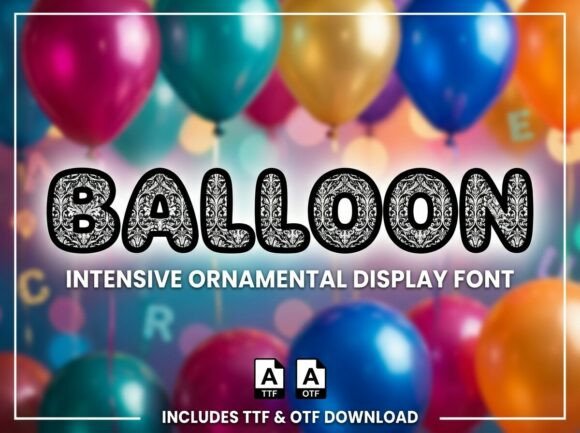
Elevate Your Typography with Balloon Font: A Premium Filigree Display Font
Are you looking to add a touch of haute-couture elegance to your typography? Look no further than Balloon, a premium filigree display font that embodies the essence of baroque sophistication. This stunning typeface is designed to infuse your visual projects with a sense of luxury and refinement, making it perfect for designers and crafters who want to create high-end designs.
The Unique Design of Balloon Font
Balloon font features heavy, rounded “bubble” contours that serve as an architectural frame for a breathtaking internal tapestry of symmetrical damask patterns, curling acanthus leaves, and royal scrolls. This intricate design creates a beautiful juxtaposition of a friendly silhouette with a hyper-detailed, aristocratic interior texture. The thick outer outline with a subtle glowing halo adds an extra layer of depth and sophistication to the font.
Perfect for Luxury Designs
Balloon font is an exceptional match for high-end cosmetic packaging, wedding invitation titles, luxury boutique logo designs, and festive elite event graphics. Its unique personality and luxurious feel make it perfect for designers who want to create visually stunning and sophisticated designs. Whether you’re working on a luxury brand project or a high-end event, Balloon font is sure to deliver a profound sense of established gemstone grace and unyielding professional luxury.
Key Features of Balloon Font
- Heavy, rounded “bubble” contours: Create a beautiful frame for your typography, adding a touch of elegance and sophistication.
- Intricate internal tapestry: Features symmetrical damask patterns, curling acanthus leaves, and royal scrolls, adding a hyper-detailed, aristocratic texture to your designs.
- Thick outer outline with a subtle glowing halo: Adds depth and dimension to your typography, creating a truly unique and luxurious feel.
Use Balloon Font to Elevate Your Designs
With Balloon font, you can create headers that feel uniquely magnificent. Its luxurious feel and sophisticated design make it perfect for a wide range of design applications, from luxury branding to high-end events. Whether you’re a designer or crafter, Balloon font is sure to become a go-to choice for creating visually stunning and sophisticated designs.
Tips for Using Balloon Font
- Pair with neutral colors: Let the font’s luxurious texture and design take center stage by pairing it with neutral colors like black, white, or metallic tones.
- Experiment with different sizes: Balloon font looks stunning in large sizes, but it can also be used effectively in smaller sizes to add a touch of elegance to your designs.
- Use it sparingly: Because of its luxurious feel and intricate design, it’s best to use Balloon font sparingly to avoid overwhelming your designs.
Balloon font is a premium filigree display font that embodies the essence of baroque sophistication. Its unique design, luxurious feel, and sophisticated texture make it perfect for designers and crafters who want to create high-end designs. Whether you’re working on a luxury brand project or a high-end event, Balloon font is sure to deliver a profound sense of established gemstone grace and unyielding professional luxury to your visual projects.